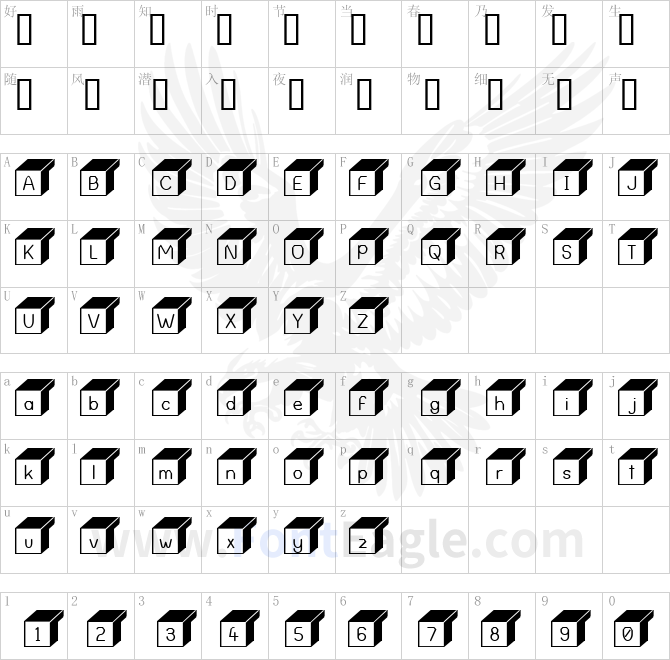
Boxing-Brophius is a great font, widely used in graphic design, single-page menu design, poster design and other fields, and is deeply loved by designers.Boxing-Brophius download.